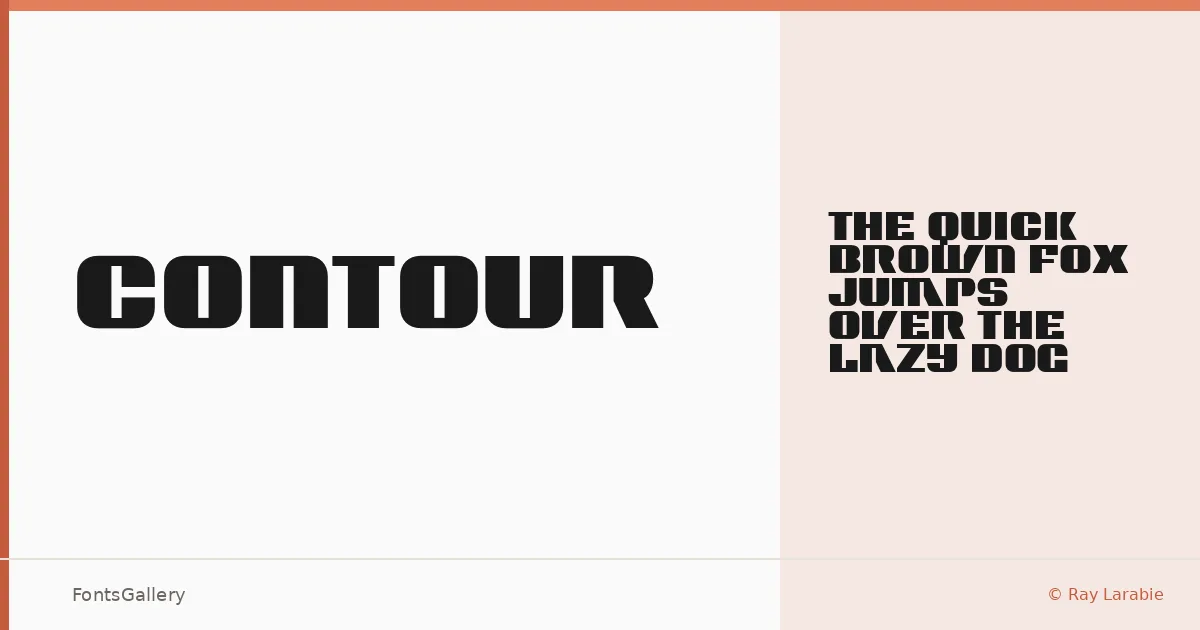
About Contour Generator Font
There is a particular tension in letterforms that borrow from vintage machinery and industrial drafting — something mechanical and deliberate in every stroke. Ray Larabie built this display face with that quality at its center, releasing it in 2022 under the CC0 Public Domain license, meaning all rights have been expressly waived. It arrives as a single Regular cut in OTF format, but it carries enough visual weight to hold a composition on its own.
The mood sits at the intersection of bold and modern with a vintage undercurrent — the kind of letterforms that feel drawn by hand on a technical specification sheet, then tightened into something graphic and deliberate. It is a display face, built for sizes where the structure of individual letters reads clearly, and the Latin character set is rendered with that large-scale application in mind. There is a confidence to the forms that suits headline work far better than body copy.
Branding systems, posters, logo lockups, and T-shirt graphics are the natural territory here — anywhere the type needs to carry a strong visual identity without relying on decorative support. For pairing, the clean geometry of Helvetica or Aileron keeps the composition grounded, while Anglecia Pro, Abrade, or AQUA each offer contrasting texture that can add depth to a layout without competing for attention.